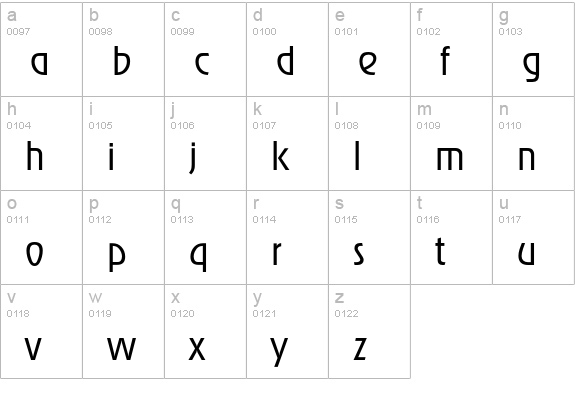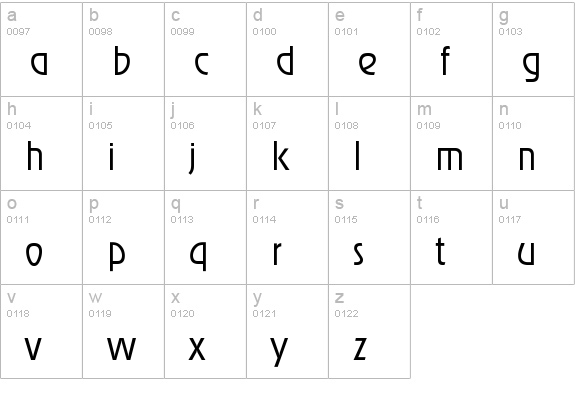
Ragtime-Light is a refined, elegant variant in the Ragtime typeface family \xE2\x80\x94 well suited to elegant body text, refined sub-headings, and luxury branding.
Introducing Ragtime-Light, a captivating and versatile font that effortlessly combines classic elegance with a contemporary twist. With its delicate curves and refined strokes, this font exudes a sense of timeless beauty, making it perfect for a wide range of creative projects. Ragtime-Light is a free font that brings a touch of sophistication to any design, whether it's a logo, branding materials, invitations, or editorial layouts. Its clean lines and balanced proportions create a harmonious visual experience, ensuring that your message is conveyed with clarity and style. This font's versatility is truly remarkable. Whether you're aiming for a refined and polished look or a more playful and whimsical vibe, Ragtime-Light can adapt to your needs effortlessly. Its smooth and flowing letterforms lend a sense of fluidity and grace to your designs, while its subtle variations in weight and spacing add depth and dimension. What sets Ragtime-Light apart is not just its aesthetic appeal, but also its accessibility. It is freely available to download at FontsMarket.com, allowing designers, artists, and creatives of all backgrounds to access this exceptional font without any barriers. This means that you can easily incorporate Ragtime-Light into your projects, regardless of your budget or resources. So, why wait? Unlock the potential of your designs with Ragtime-Light, the free font that combines elegance, versatility, and accessibility. Download it now from FontsMarket.com and embark on a creative journey that will leave a lasting impression.